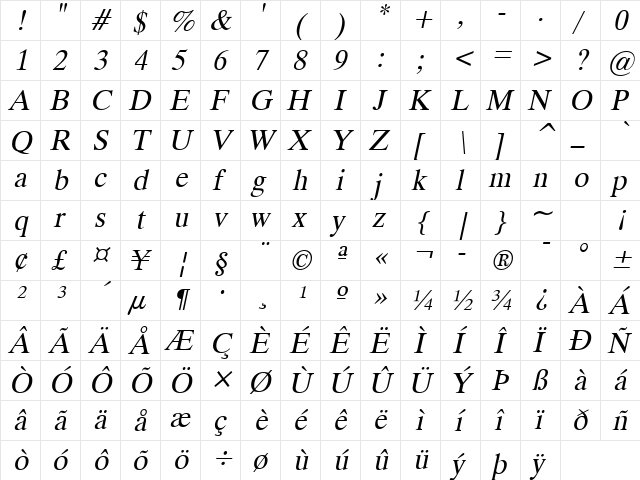
DukeWide Italic Font Preview
DukeWide Italic
DukeWide Italic Font Details
Design Context for DukeWide Typeface
DukeWide is a composed and adaptable typeface that performs quietly and consistently across a wide range of design contexts. The dynamic lean of this cut emphasises speed and emphasis in any layout.
Pro Tip: Try DukeWide for annotation and caption copy alongside an upright companion — the contrast in angle creates a dynamic but ordered typographic system.